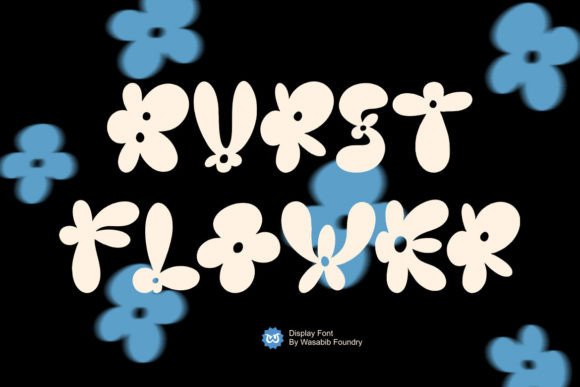
The Burst Flower Font: A Delightful Addition to Your Design Arsenal
I’ll never forget the time I was working on a wedding invitation project, and my client asked me to create a custom font that resembled blooming flowers. I was stumped, to say the least. That’s when I stumbled upon the Burst Flower font, and it completely transformed my design. In this article, I’ll share my experience with this charming display typeface, its features, and how to make the most of it in your designs.
Here’s what I love about the Burst Flower font:
- ✨ Unique and eye-catching design, perfect for making a statement
- ✅ Beautifully crafted letters that resemble vibrant blooms
- ✅ Easy to read and recognize, despite its creative design
- ✅ Versatile and suitable for various design projects, from invitations to artistic displays
However, I did notice a few quirks:
- 🤔 Limited character set, which might not be suitable for lengthy text
- ⚠️ Might not be the best choice for very small font sizes, as details can get lost
The Story Behind Burst Flower Font
The Burst Flower font was designed by a talented typographer who wanted to capture the beauty of blooming flowers in a font. Inspired by the intricate details of flowers, the designer created a unique and charming font that’s perfect for adding a touch of elegance to your designs.
| Font Name | Burst Flower Font |
| Author | Wasabib Studio |
| What is the Burst Flower font best suited for? | The Burst Flower font is ideal for display text, such as invitations, greeting cards, and artistic displays. |
| Is the Burst Flower font available in different languages? | The Burst Flower font may not be available in all languages, but it does come with a range of glyphs and OpenType features that can be used to create custom characters. |